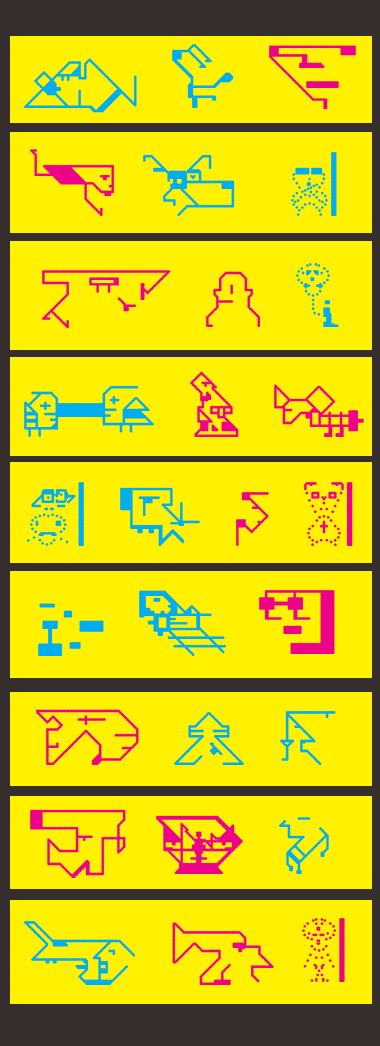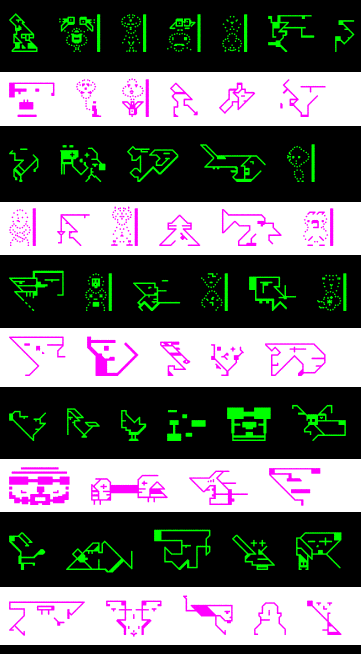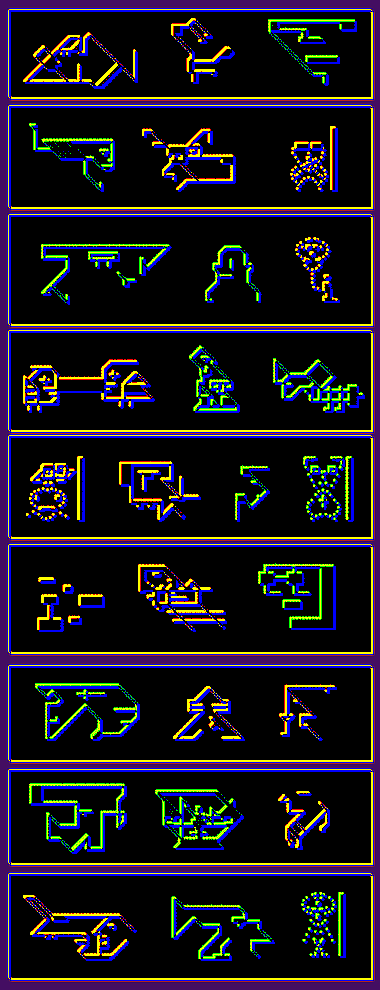
So here is the reworked TESTAMENT version of my entry which won a price. As it is part of FS HIstory, i updated the initial file and did not make a new one as for the rest of the series. This always amazed me this one won as for me it was surely not the strongest of my 3 entries, maybe it was because this one had more to do with a designer work with its pictogrammatic esthetic...